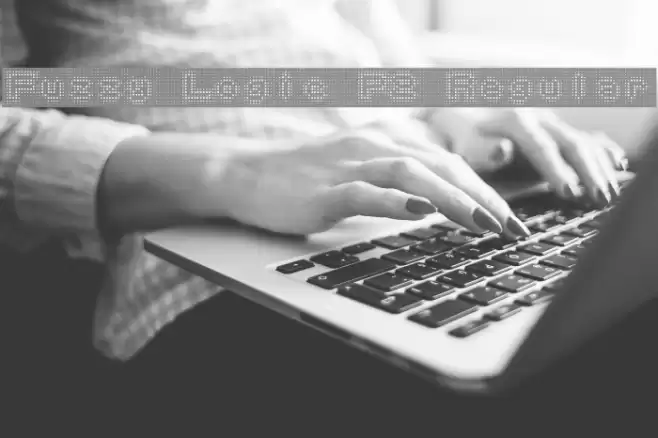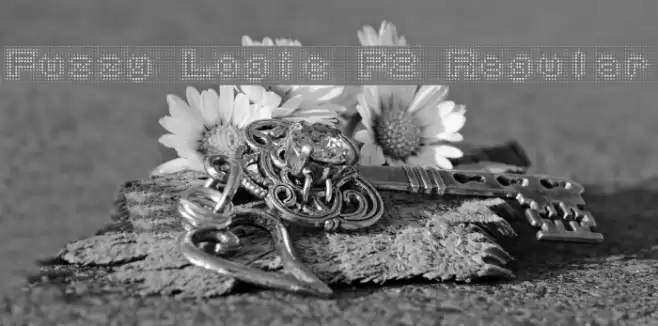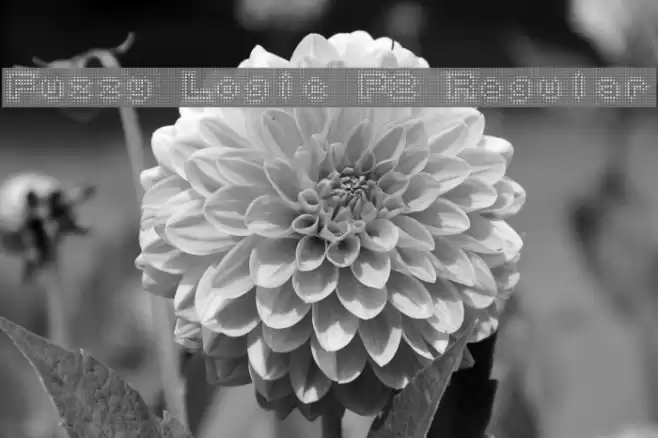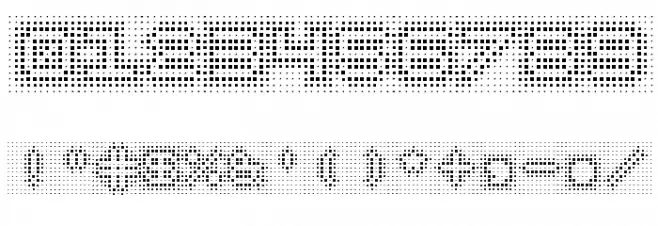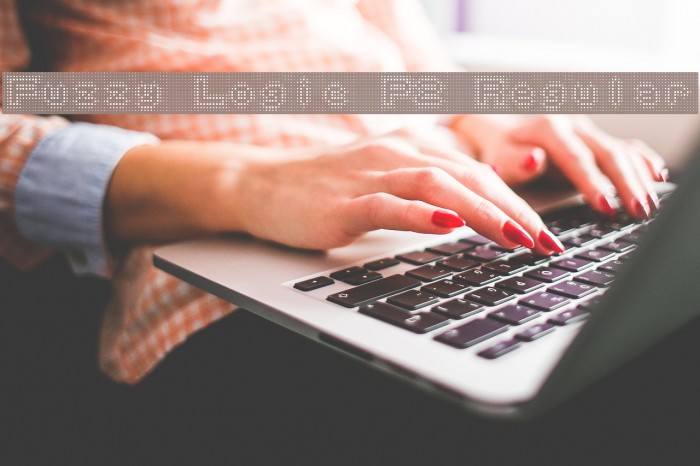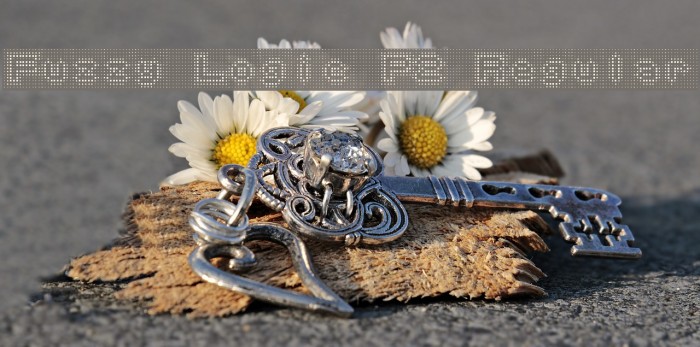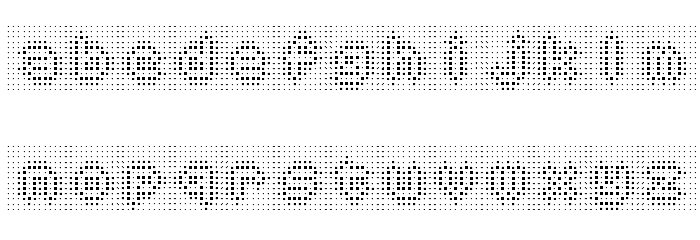
Fuzzy Logic P2 Regular Font
Fuzzy Logic P2 Regular Description
This font features a unique dot matrix style, creating characters with a pixelated appearance. Each letter and symbol is composed of small, evenly spaced dots, giving it a digital and futuristic look. The uppercase and lowercase letters maintain a consistent design, with rounded edges and uniform dot placement. Numbers and special characters follow the same pattern, ensuring a cohesive visual experience. This font's distinct style makes it stand out, offering a modern twist on traditional typefaces.
A dot matrix style font with a digital, pixelated appearance from Dingbats fonts.
- Proposed Projects: Ideal for digital displays, tech-themed designs, and retro-style projects.
- Use Case: Logos, Headlines, Digital displays